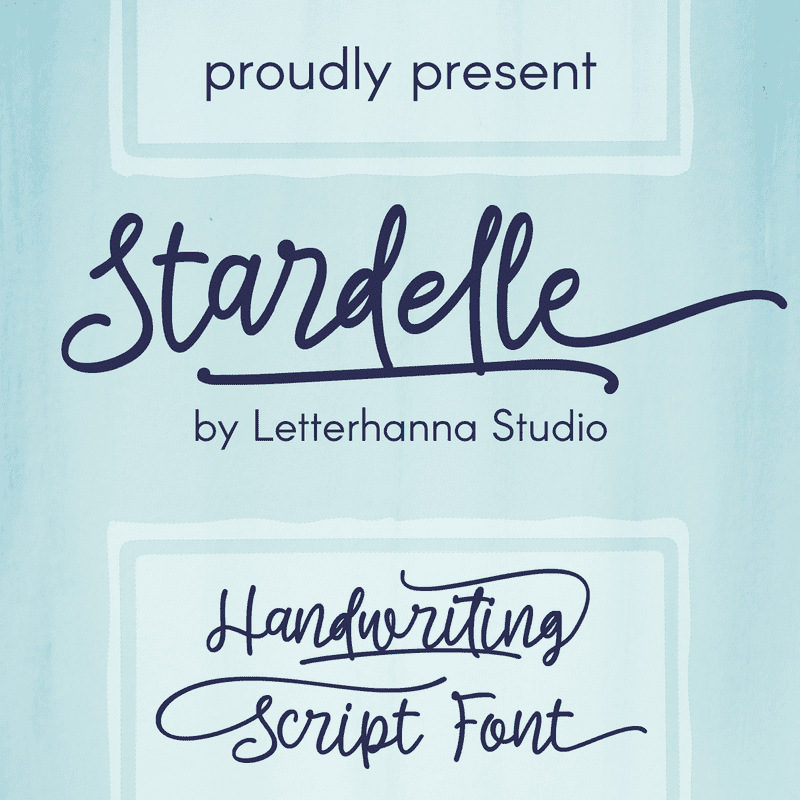
Preview and download Stardelle Font. Created by Letterhanna Type Foundry in Script Handwritten styles with Free for personal use license.
"Introducing 'Stardelle,' a bold and beautifully handcrafted font that adds a touch of elegance to your designs. With its flowing lines and abundant swashes, 'Stardelle' exudes charm and sophistication. This handwritten font is perfect for adding a personal and artistic flair to invitations, posters, branding, and more. Let 'Stardelle' illuminate your creativity and bring a touch of magic to your projects." Test and get this font at https://letterhanna.com/hosperity-font/ THIS FONT is Free for personal, Paid for commercial use By installing or using this font, you are hereby agree to this Product Usage Agreement: 1. This font is ONLY FOR PERSONAL USE 2. You are REQUIRES A LICENSE for PROMOTIONAL or COMMERCIAL USE 3. You cannot redistribute fonts because copyright is still with us. 4. You may not open, edit, or modify this font 5. For more information about movie license, broadcast license, and corporate license, please contact us. |